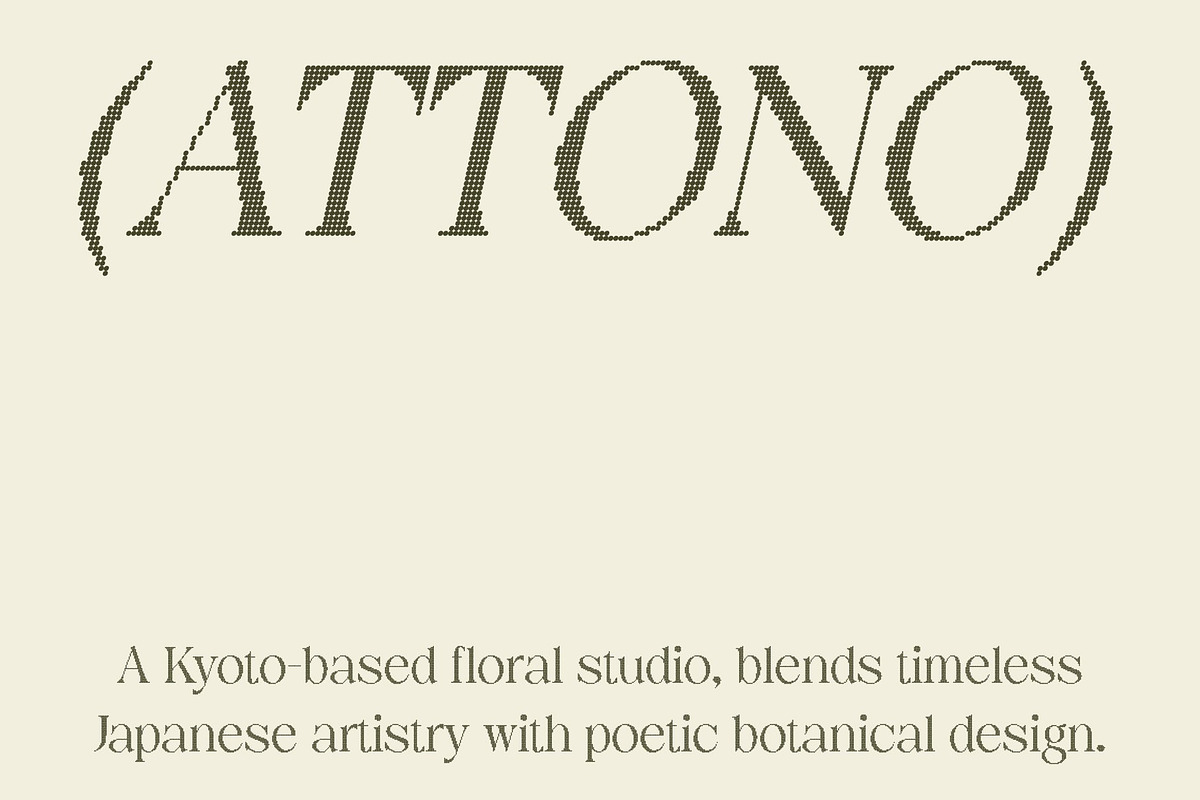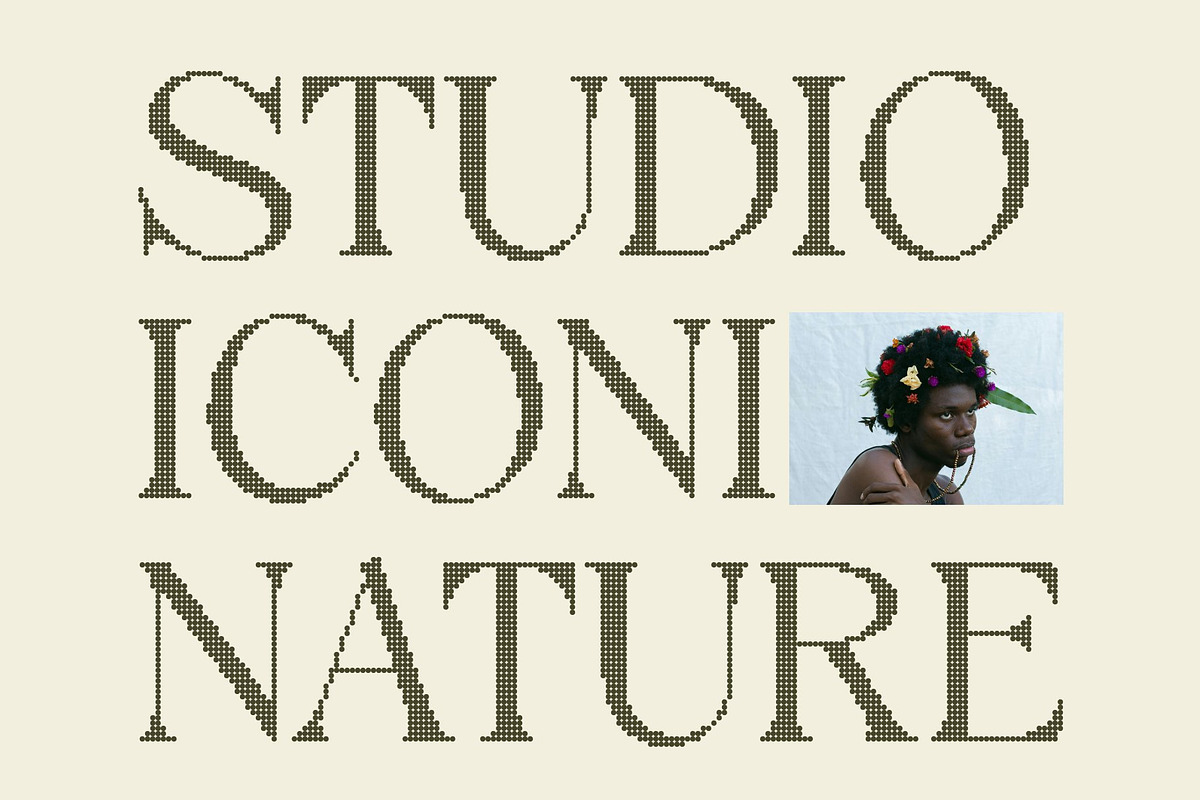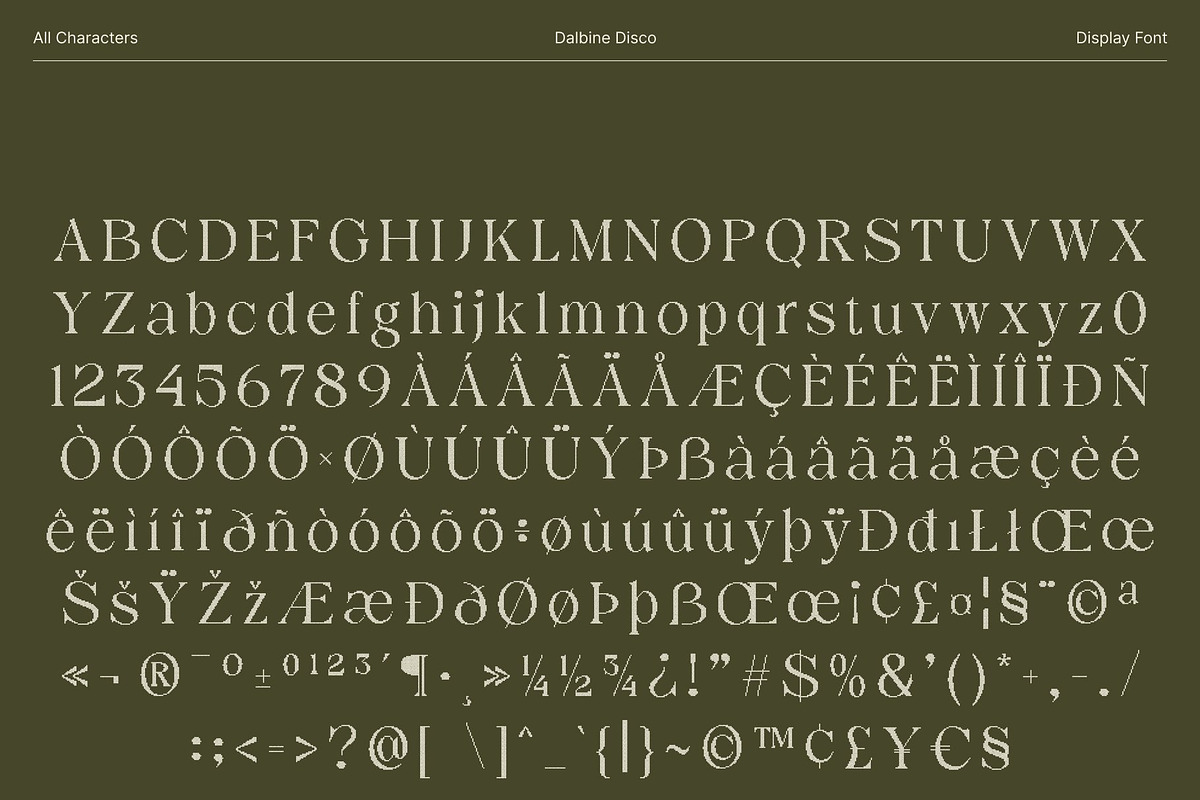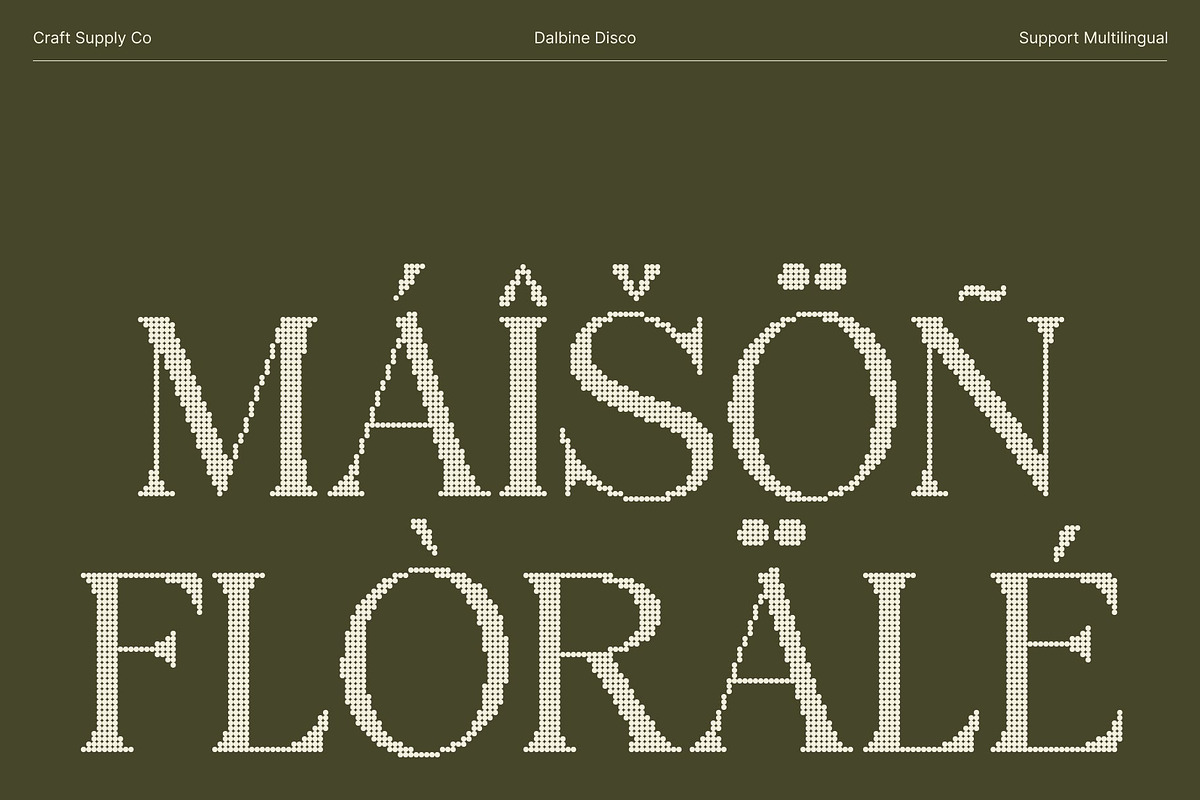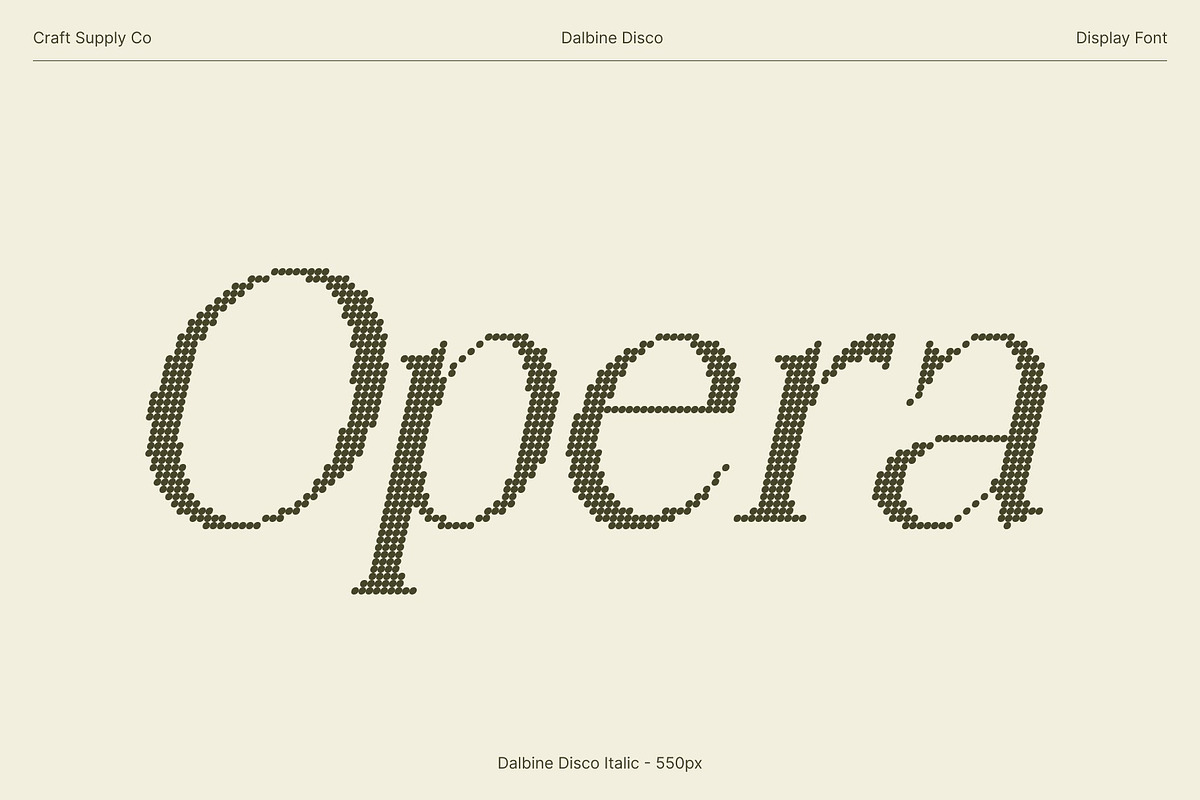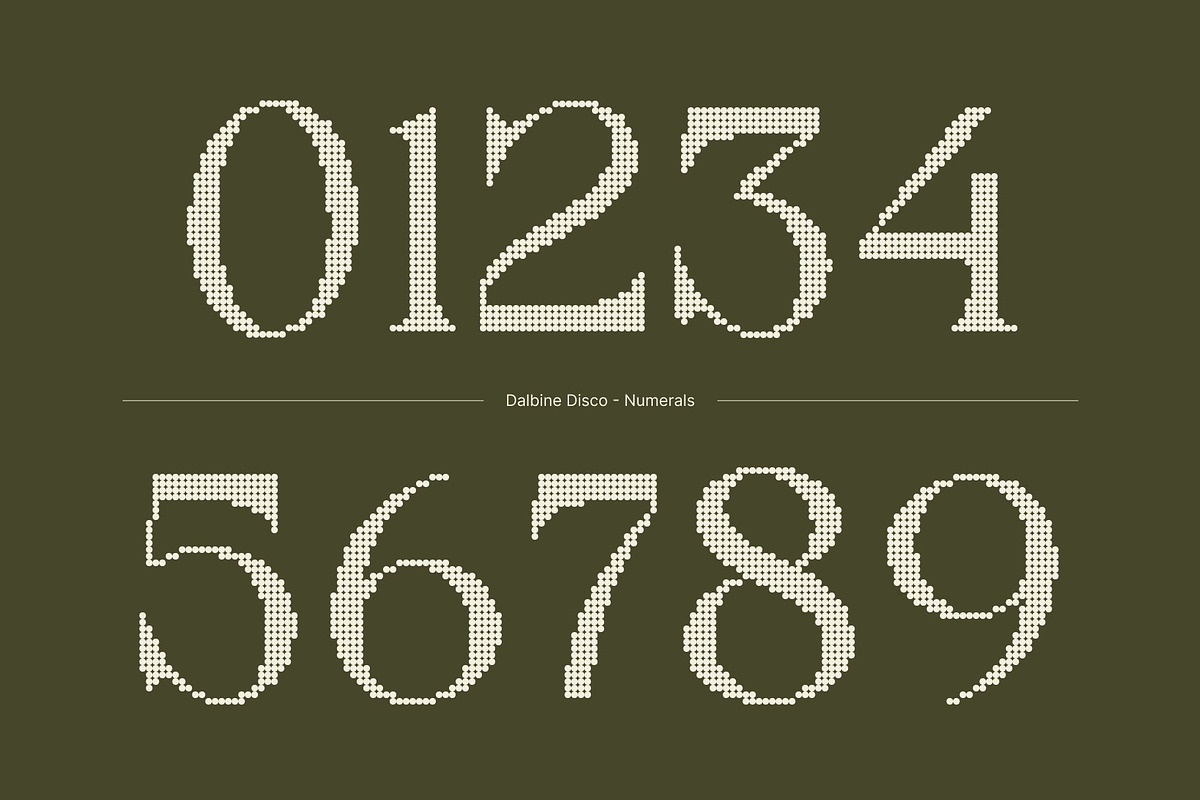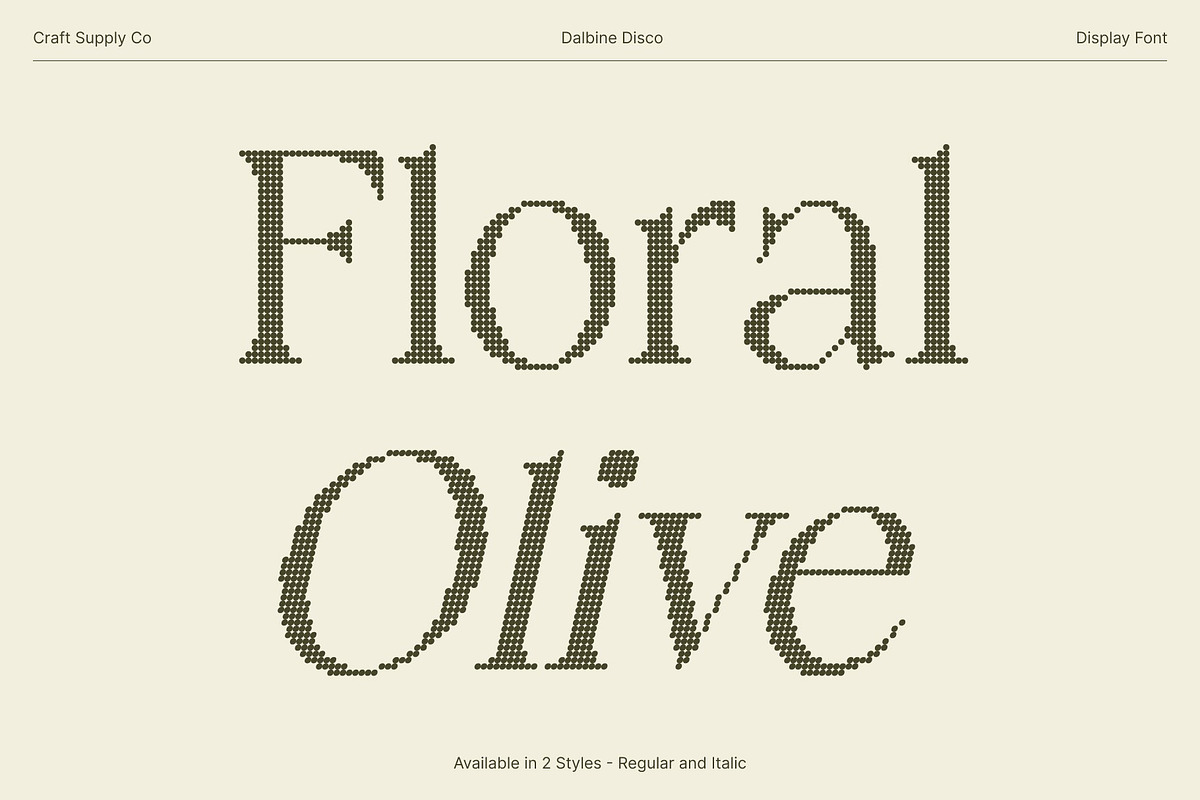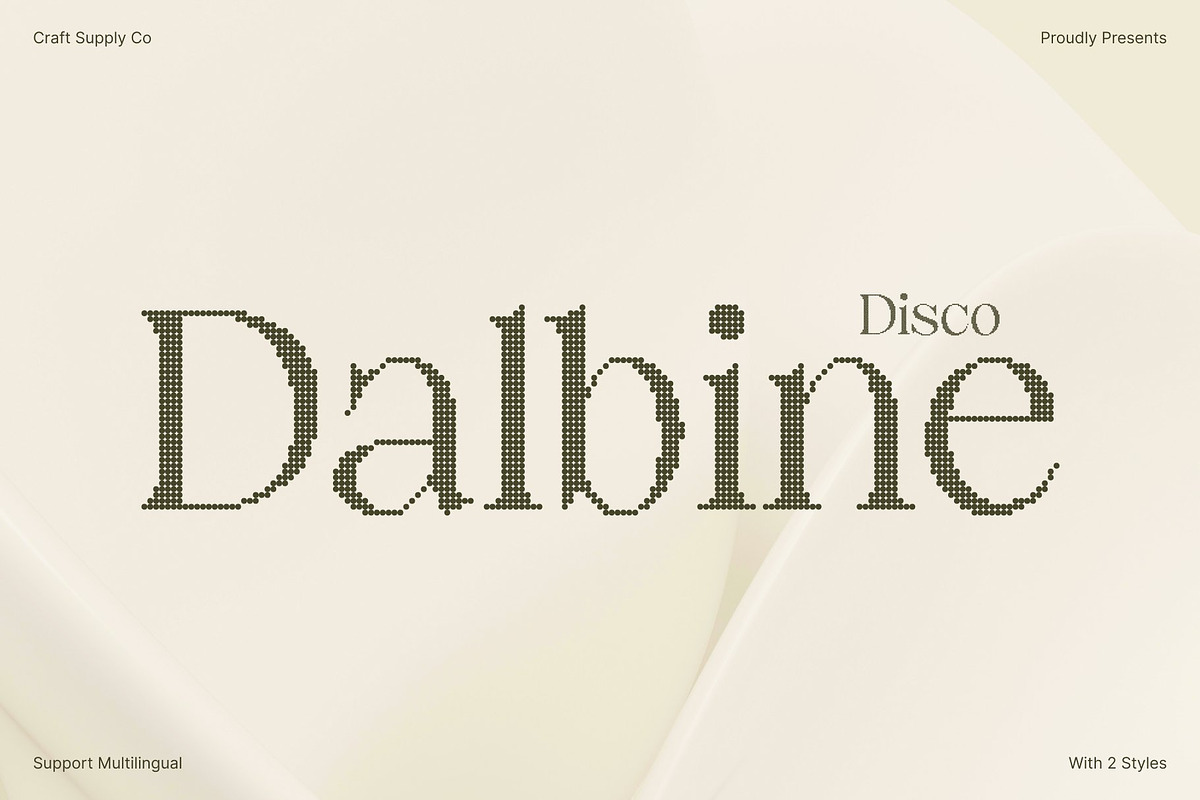
Dalbine Disco
Dalbine Disco – Modern Classic Serif with Glamorous Disco Sparkle
Clean, Sleek Shapes for Contemporary Elegance This font combines the timeless charm of a classic serif with the clarity and simplicity of modern design. Its clean, well-proportioned letterforms create a sophisticated and polished presence, making every word feel stylish and refined. This modern classic approach ensures readability while maintaining an elegant aesthetic across various design applications.
Disco Sparkle Effect for Dynamic Visual Energy The disco effect adds a layer of sparkle and movement to each character, infusing the font with vibrant energy. This subtle shimmer enhances headlines, titles, and display text, giving layouts a glamorous, dynamic feel that draws attention and leaves a lasting impression.
Versatile for Luxury Branding, Editorials, and Creative Projects This font excels in high-end design contexts. From luxury branding and editorial layouts to posters and creative campaigns, the font balances classic sophistication with contemporary flair. Its refined structure paired with dynamic sparkle allows designers to create visually striking compositions that feel both elegant and energetic.
Perfect for Stylish, Refined, and Impactful Designs Whether used in print, digital, or promotional projects, delivers a harmonious combination of tradition, modernity, and playful glamour. Its sleek serif forms and disco-inspired accents provide the perfect balance of sophistication and excitement, making it an ideal choice for projects that aim to stand out with style and personality.